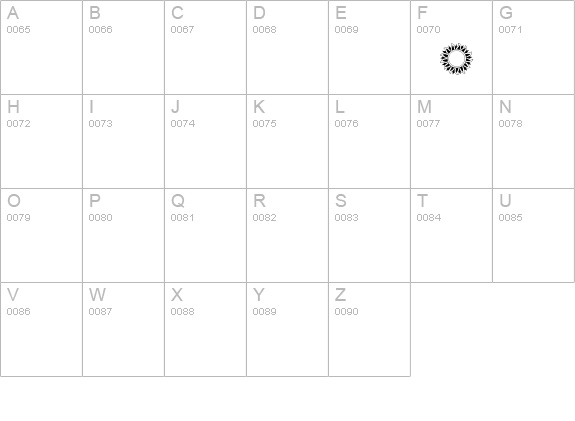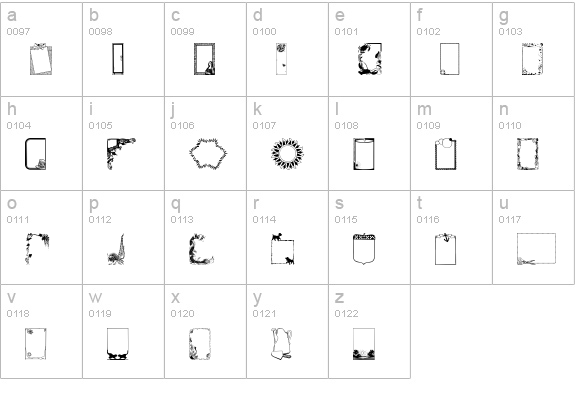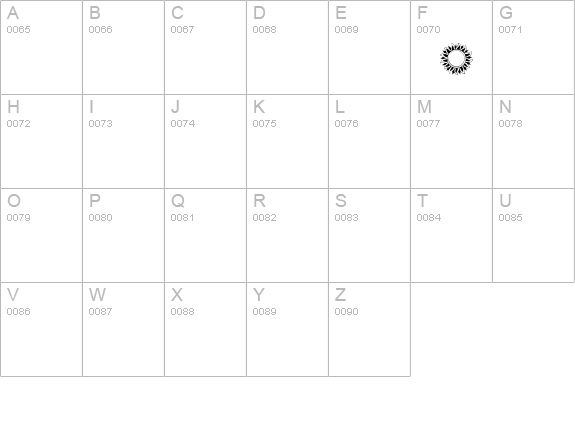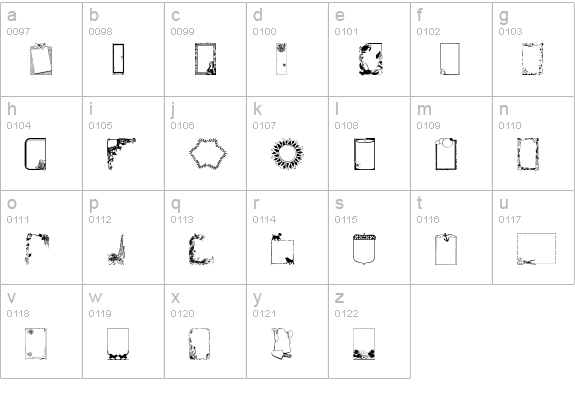
FramesAndBordersIII Font Details
FramesAndBordersIII font is a beautifully intricate and ornate typeface that exudes elegance and sophistication. With its delicate lines and intricate details, this font is perfect for adding a touch of class to any project. The decorative frames and borders incorporated into the design make it a versatile choice for a wide range of creative applications, from invitations to signage to branding. What sets FramesAndBordersIII font apart is its unique combination of classic charm and modern appeal. Whether you're looking to create a vintage-inspired design or add a touch of whimsy to your project, this font has you covered. Its timeless aesthetic makes it a fantastic choice for both print and digital media. Best of all, FramesAndBordersIII font is available for free download at FontsMarket.com. This means you can easily access this stunning typeface and start incorporating it into your designs right away. Don't miss out on the opportunity to elevate your projects with the beauty and versatility of FramesAndBordersIII font.